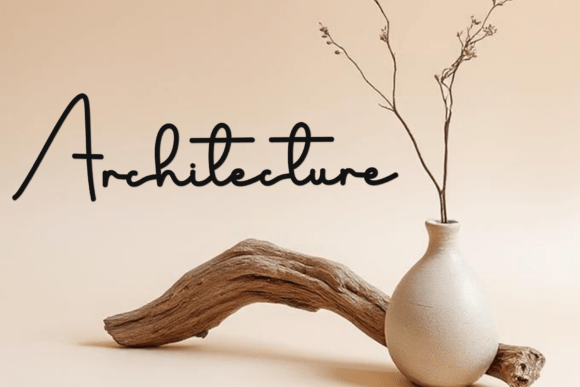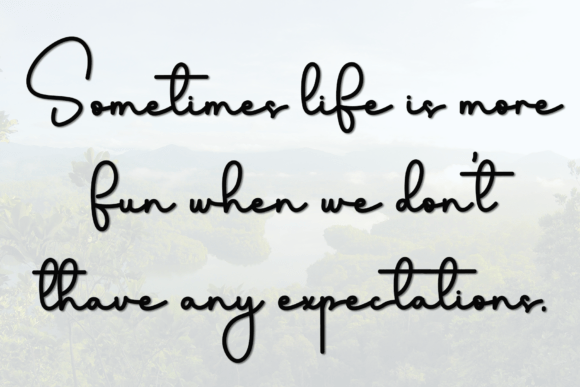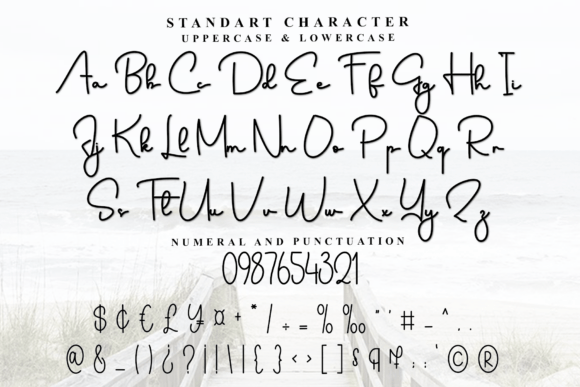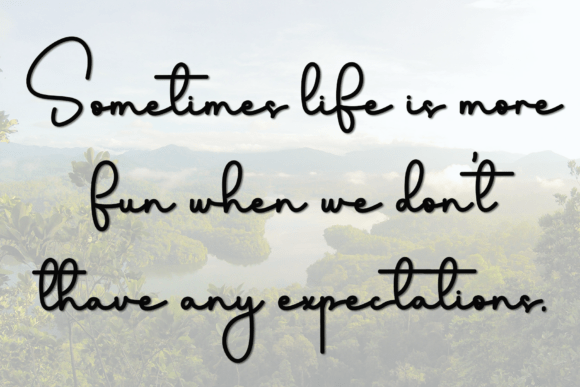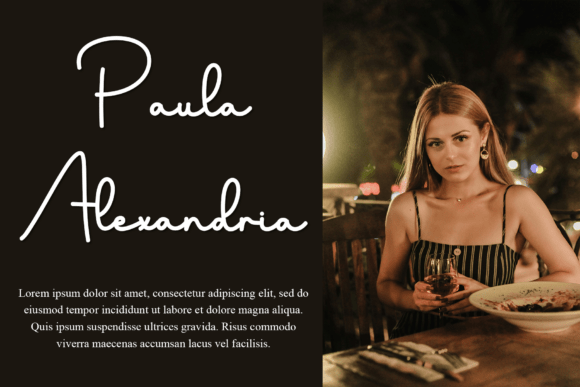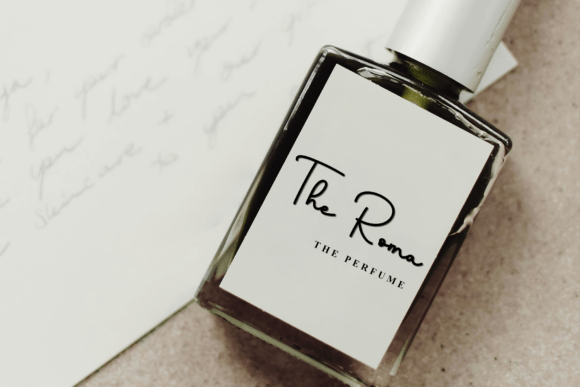
Ainsley Font: Elevate Your Designs with a Unique and Versatile Typeface
In the world of typography, a font can make or break a design project. Ainsley font is a stunning example of a beautifully crafted typeface that can elevate your creative works to new heights. Designed with a soft, unique touch, Ainsley boasts distinctive strokes that give it a special character, making it both meaningful and versatile for future use.
What Makes Ainsley Font Stand Out?
Ainsley’s unique design sets it apart from other fonts. Its soft, rounded edges and distinctive strokes create a visually appealing effect that can add a touch of elegance to any design project. Whether you’re working on a logo, brochure, or social media graphic, Ainsley font is sure to make your designs stand out.
One of the key features that make Ainsley font so versatile is its range of characters. With a wide range of characters to choose from, you can create complex and visually appealing designs that showcase your creativity. From bold and statement-making to delicate and intricate, Ainsley font can adapt to any design style or theme.
Perfect for Design Projects, Crafts, and Creative Works
Ainsley font is perfect for designers, crafters, and creatives looking to add a personal touch to their work. Whether you’re designing a logo, creating handmade crafts, or developing a brand identity, Ainsley font is an excellent choice. Its unique design and versatility make it an ideal font for a wide range of creative projects, including:
- Logo design: Create a lasting impression with Ainsley font’s distinctive and memorable design.
- Brochures and flyers: Add a touch of elegance to your marketing materials with Ainsley’s soft and rounded edges.
- Social media graphics: Stand out on social media with Ainsley font’s bold and statement-making design.
- Handmade crafts: Add a personal touch to your crafts, such as handmade cards, gift tags, and more.
Whether you’re working on a commercial project or a personal creative endeavor, Ainsley font is an excellent choice. Its natural font style and versatility make it ideal for a wide range of products, including:
- Print materials: Use Ainsley font for brochures, flyers, posters, and more.
- Digital products: Incorporate Ainsley font into your website, social media graphics, and email marketing campaigns.
- Merchandise: Add Ainsley font to your merchandise, such as t-shirts, mugs, and tote bags.
Why Choose Ainsley Font?
With so many fonts available, why choose Ainsley font? Here are just a few reasons why Ainsley font stands out:
- Unique design: Ainsley font boasts a distinctive and memorable design that will set your projects apart.
- Versatility: Ainsley font is perfect for a wide range of creative projects, from design and crafts to digital products and merchandise.
- Natural font style: Ainsley font’s natural font style makes it perfect for creating visually appealing designs that resonate with audiences.
In conclusion, Ainsley font is a beautiful and eye-catching typeface that can elevate your design projects to new heights. With its unique design, versatility, and compatibility, Ainsley font is perfect for designers, crafters, and creatives looking to add a personal touch to their work. Whether you’re working on a commercial project or a personal creative endeavor, Ainsley font is an excellent choice. Try Ainsley font today and discover the difference it can make in your designs!